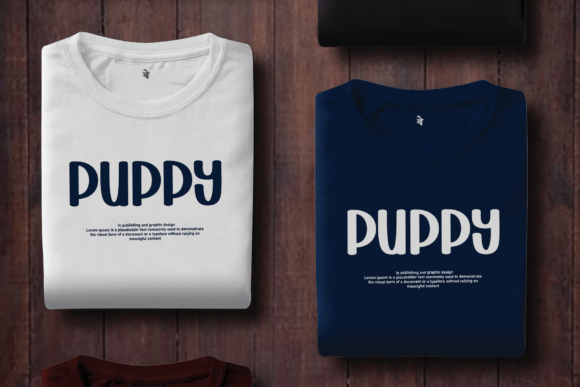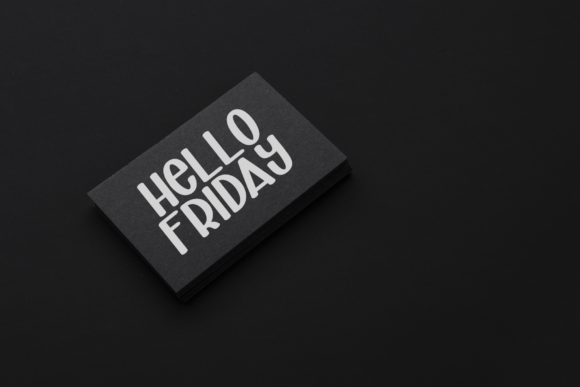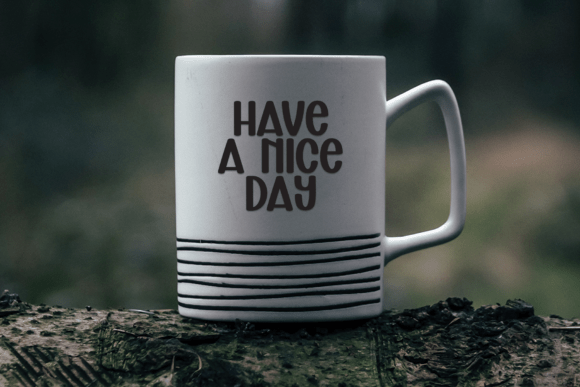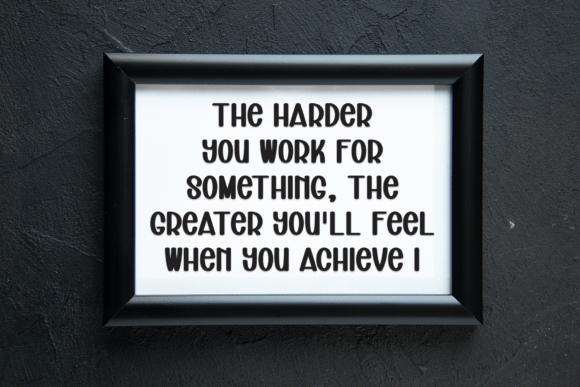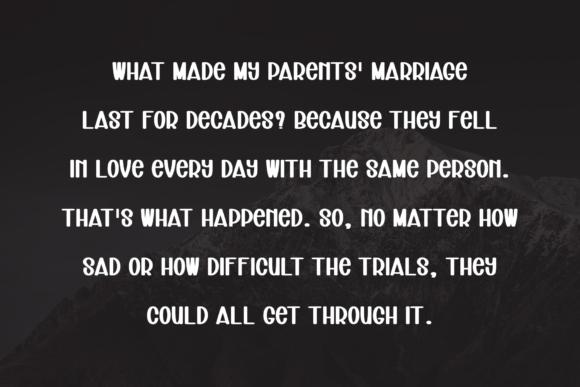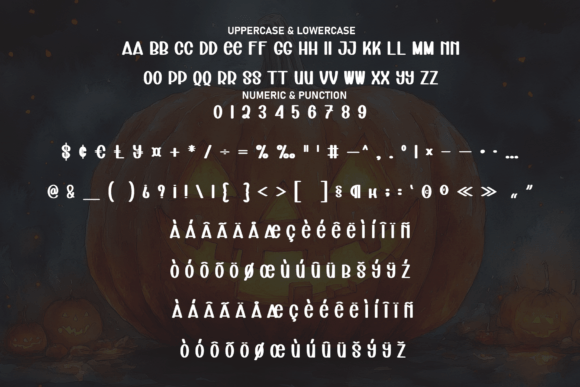
Introduction to Magic Pumpkin Font
Have you ever stared at a blank page, searching for the perfect font to capture the essence of a creative project? The struggle is real, especially when designing something as special as a wedding invitation or a heartfelt greeting card. That’s where the Magic Pumpkin Font comes in – a delightful and welcoming handwritten display font that’s sure to add a dash of magic to your design work.
With its lighthearted essence and charming charm, the Magic Pumpkin Font is the perfect design resource for any creative project yearning for a sprinkle of joy. Whether you’re a seasoned designer or a hobbyist, this high-quality font is a valuable addition to your toolkit, allowing you to infuse your designs with a sense of fun and playfulness that’s sure to delight.
Key Features of Magic Pumpkin Font
- High-quality design resource ideal for creative projects, offering a unique and magical touch.
- Features a distinctive, whimsical design with intricate details, making it perfect for adding a touch of magic to your designs.
- Perfect for designers, artists, and crafters looking for a unique design resource to elevate their creative project.
Honest Review: Magic Pumpkin Font
I recently stumbled upon the Magic Pumpkin Font while searching for a unique design resource for a creative project. I was excited to give it a try and see if it lived up to its name.
- The Magic Pumpkin Font is a high-quality font that’s perfect for fall-themed designs or projects with a whimsical touch.
- The transparent background makes it easy to use in various design scenarios, from logos to social media graphics.
- The font is a bit limited in its range of characters, which might make it less suitable for longer texts or complex projects.
- The design is quite playful, which might not be to everyone’s taste.
The Magic Pumpkin Font is perfect for a variety of creative projects, including invitations, party decorations, and social media graphics. Its high-quality design and transparent background make it an ideal choice for any project that requires a touch of magic.